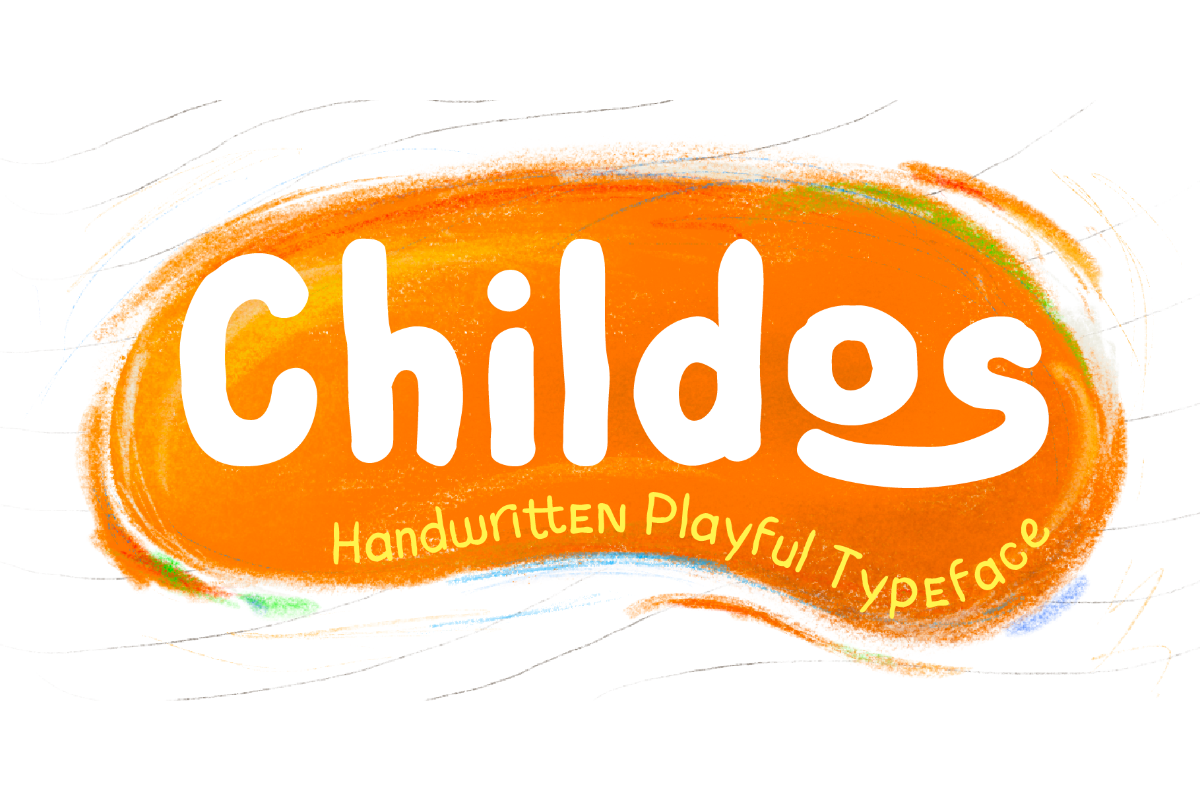
Childos Bold
Childos Font - A Playful Handwritten Typeface for Children's Book, ePub Some fonts don’t just display words, they feel like something. Childos Playful Handwritten Font is one of them. This playful handwritten font is designed to capture the pure, unfiltered energy of childhood: curious, warm, and full of life. Characterized by its rounded, slightly rough sans serif style, Childos strikes a rare balance, it carries the elegance of genuine handwriting while wrapping it in a playful, approachable